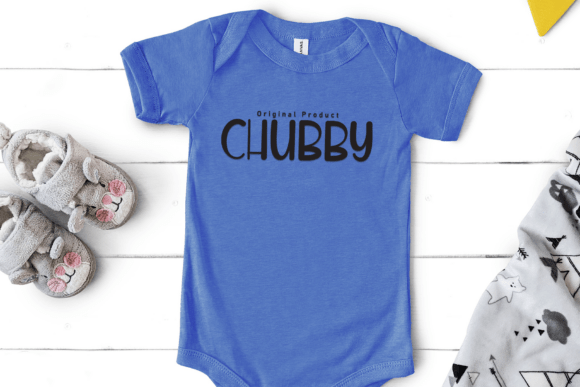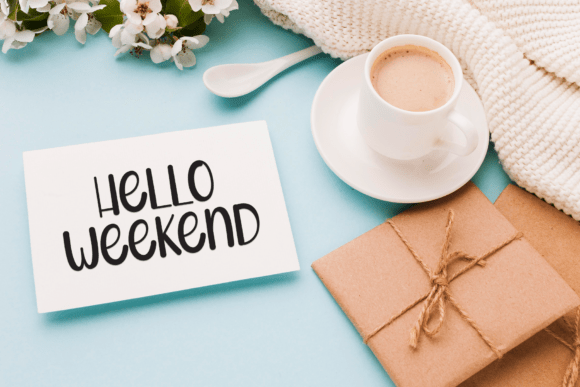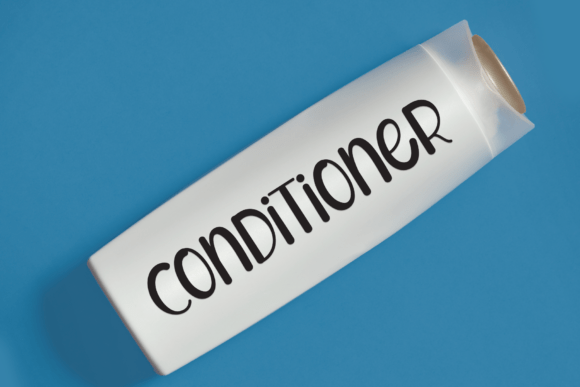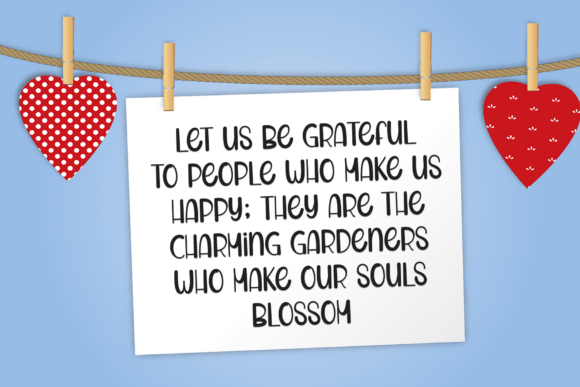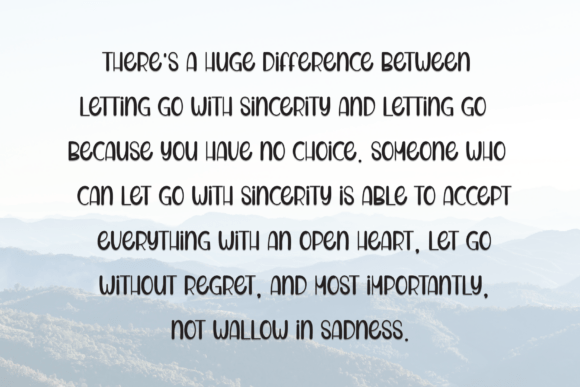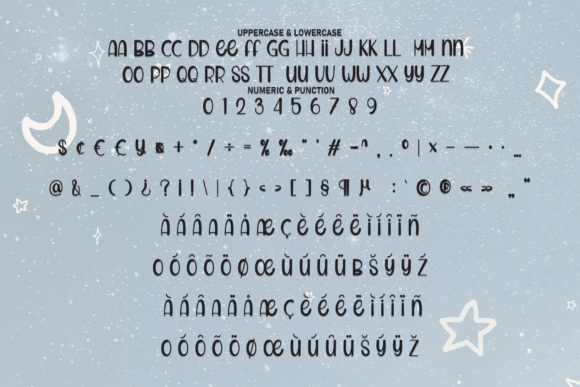
Introduction to Night Handmade Font
Do you remember the moment you first started working on a creative project that truly spoke to your heart? The feeling of excitement, the rush of adrenaline, and the sense of satisfaction as your idea began to take shape? For many of us, that moment is what drives us to create, to express ourselves, and to bring our imagination to life. And when it comes to typography, a beautiful font can make all the difference.
That’s where the Night Handmade Font comes in – a stunning display font that embodies the warmth and charm of life’s cherished moments. With its whimsical allure and tender strokes, this font is the perfect addition to any design project, whether you’re crafting wedding invitations, heartfelt greeting cards, or simply looking to add a touch of elegance to your artwork.
- Unique Hand-Drawn Design: The Night Handmade Font features a distinctive, hand-drawn design that adds a touch of personality to any creative project.
- High-Quality Font: This font is designed to deliver high-quality results, making it an ideal design resource for professionals and enthusiasts alike.
- Perfect for Creative Projects: The Night Handmade Font is ideal for use in creative projects, including branding, packaging, and editorial design.
Honest Review: Night Handmade Font
As a designer, I’m always on the lookout for high-quality design resources to enhance my creative projects. The Night Handmade Font caught my attention, and I decided to give it a try.
- ✨ Unique and quirky design style that adds a personal touch to any project.
- ✨ High-quality font files that are smooth and easy to use.
- ⚠️ Limited character set, which may not be suitable for longer texts.
- ⚠️ Some letters may not be easily readable at smaller font sizes.
Overall, I’m impressed with the Night Handmade Font. While it may not be perfect, it’s a great addition to any designer’s toolkit, especially for creative projects that require a unique touch. With its high-quality design and free download option, it’s definitely worth checking out.
The Night Handmade Font is perfect for a variety of creative projects, including: